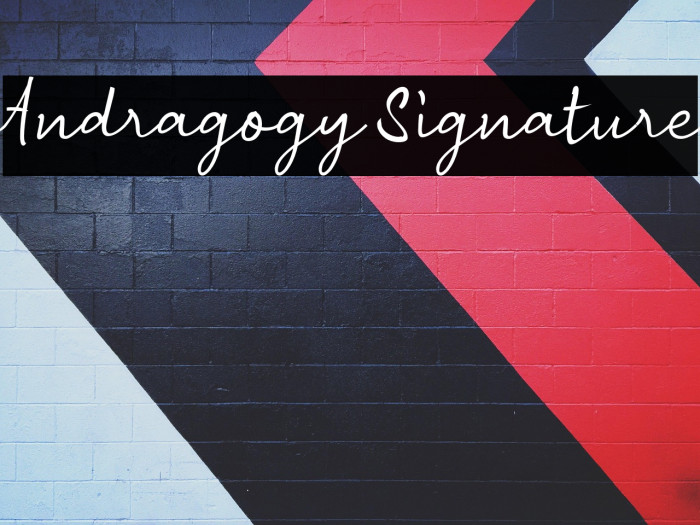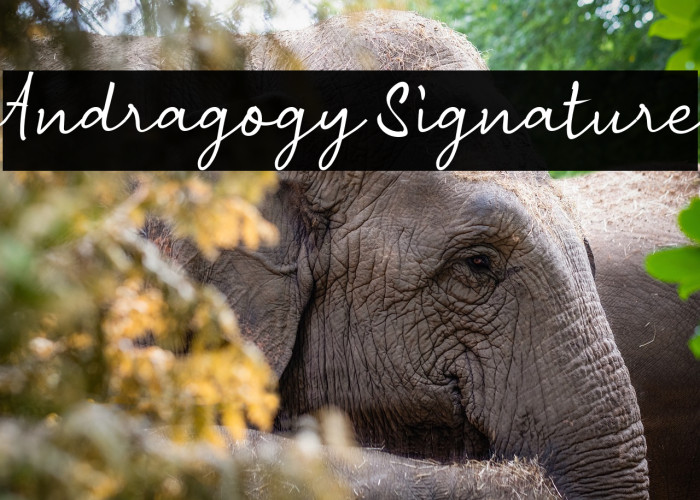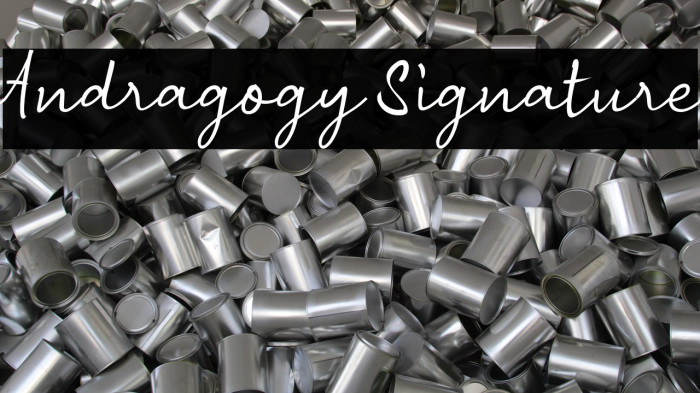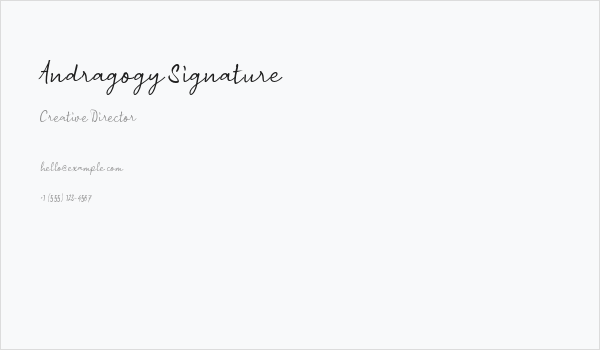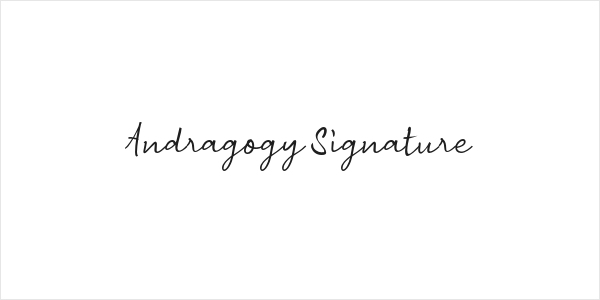
Andragogy Signature Font
Andragogy Signature Description
This font exudes a handwritten, cursive style that mimics the fluidity and elegance of a personal signature. The uppercase letters are bold and expressive, with varying stroke widths that add a dynamic and artistic flair. The lowercase letters maintain a consistent flow, enhancing readability while retaining a personal touch. Numbers and special characters are crafted with the same attention to detail, ensuring a cohesive look across all text elements. The overall design is both sophisticated and approachable, making it suitable for a variety of creative applications.
| Proposed Projects | Ideal for wedding invitations, personal branding, greeting cards, and artistic projects. |